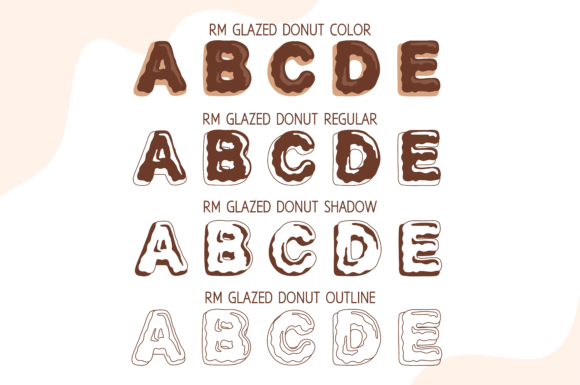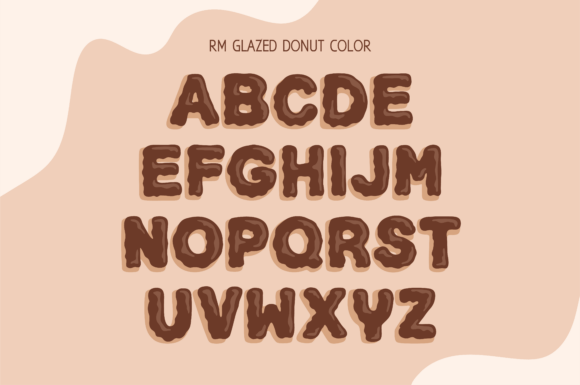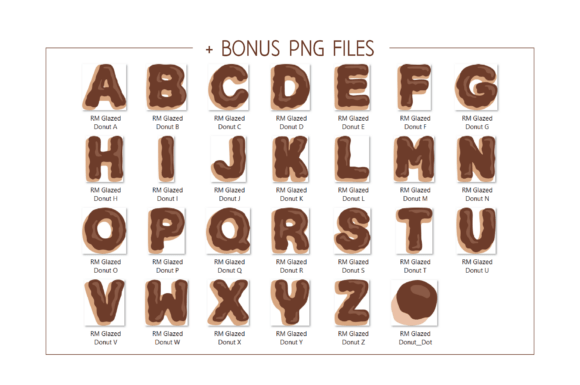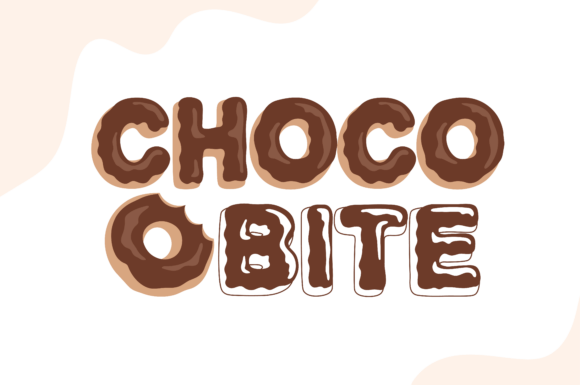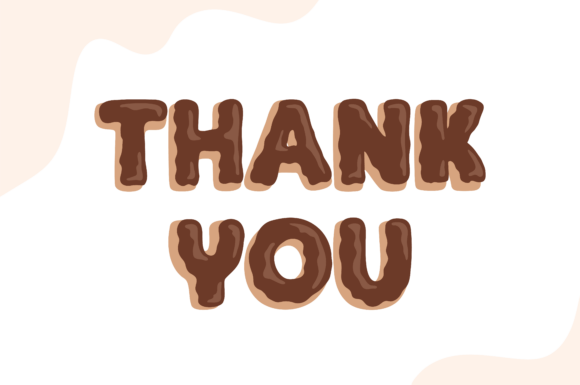
Indulge in the Delectable Delight of Glazed Donut Chocolate Font
Are you a designer or crafter looking for a unique and aesthetically appealing typeface to add a touch of whimsy to your creations? Look no further than the Glazed Donut Chocolate font, a mouth-watering innovation that’s sure to satisfy your design cravings. This decadent font is inspired by the irresistible charm of a glazed donut, dripping with chocolatey goodness that’s sure to bring a smile to anyone’s face.
The Perfect Treat for Designers and Crafters
The Glazed Donut Chocolate font is an ideal choice for designers and crafters who want to create captivating cocoa-themed designs that exude joy and warmth. Whether you’re designing T-shirts, tumblers, posters, or any other creative project, this font is sure to bring a unique touch of personality to your work. With its rich, chocolatey texture and smooth, glazed appearance, this font is the perfect treat for anyone looking to add a dash of fun and playfulness to their designs.
Key Features of Glazed Donut Chocolate Font
- Unique and Aesthetically Appealing: The Glazed Donut Chocolate font boasts a distinctive and eye-catching design that’s sure to set your creations apart from the rest.
- Decadent Chocolatey Charm: With its rich, chocolatey texture and smooth, glazed appearance, this font is the perfect choice for anyone looking to create cocoa-themed designs that are both fun and sophisticated.
- Versatile: The Glazed Donut Chocolate font is perfect for a wide range of design projects, from T-shirts and tumblers to posters and more.
Design Ideas with Glazed Donut Chocolate Font
The Glazed Donut Chocolate font is incredibly versatile, making it perfect for a wide range of design projects. Here are a few ideas to get you started:
- T-Shirt Designs: Create fun and playful T-shirt designs that are sure to appeal to anyone with a sweet tooth.
- Tumbler Designs: Add a touch of personality to your tumblers with custom designs that feature the Glazed Donut Chocolate font.
- Poster Designs: Create eye-catching posters that showcase your favorite chocolate-themed designs.
- Social Media Graphics: Use the Glazed Donut Chocolate font to create engaging social media graphics that are sure to delight your followers.
Why Choose Glazed Donut Chocolate Font?
So why choose the Glazed Donut Chocolate font for your design projects? Here are just a few reasons:
- Unique and Memorable: This font is sure to make your designs stand out from the rest, thanks to its distinctive and eye-catching appearance.
- High-Quality: The Glazed Donut Chocolate font is designed to be clear and legible, even at small sizes.
| Font Name | Glazed Donut Chocolate Font |
| Author | SVG Bloom |
In conclusion, the Glazed Donut Chocolate font is a deliciously delightful typeface that’s sure to bring a touch of joy and warmth to your design projects. With its unique and aesthetically appealing design, decadent chocolatey charm, and versatility, this font is the perfect choice for designers and crafters who want to create captivating cocoa-themed designs. So why wait? Dip into the sweetness of Glazed Donut Chocolate font and bring your design fantasies to life!